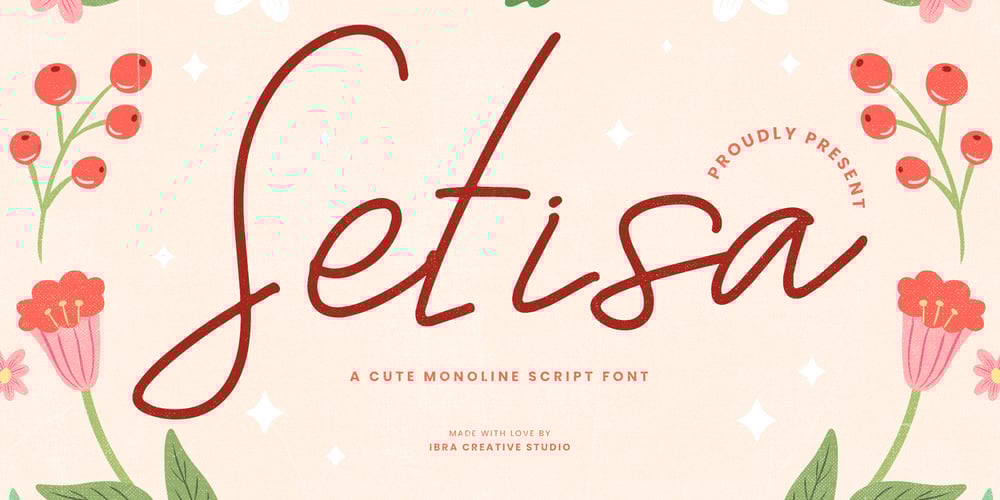
Setisa
Setisa font
Setisa Font Family was designed by Roisatul Azizah and published by IbraCreative. Setisa contains 1 styles and family package options. Setisa, a delightful monoline script font, enchants with its inherent cuteness and graceful simplicity. Each stroke is meticulously crafted, forming a seamless dance of letters that exude a charming, handwritten aesthetic. The monoline design lends a uniform and contemporary feel, while the script nature adds a touch of whimsy. Setisa effortlessly blends a sense of playfulness with a clean, modern edge, making it perfect for a myriad of creative endeavors. Whether used in branding, invitations, or any design project seeking a sweet and approachable tone, Setisa stands as a testament to the beauty found in simplicity, making every word written a joyful expression of charm and elegance.